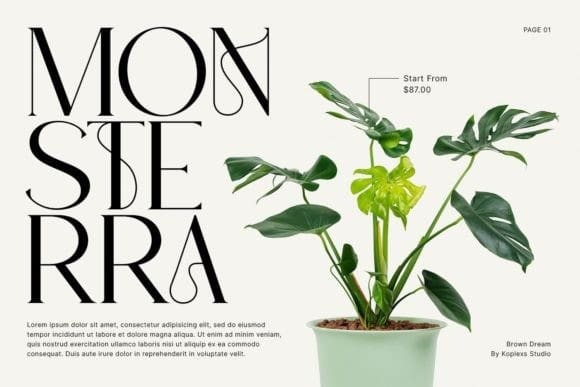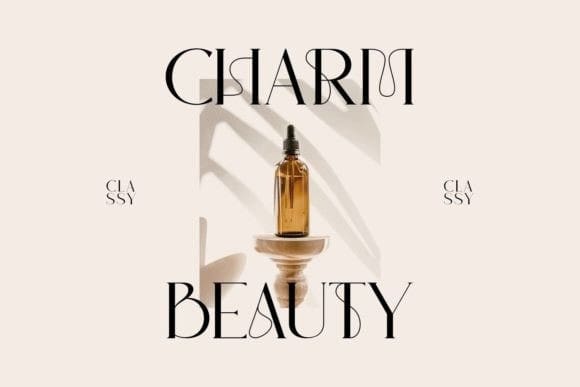
Brown Dream Font
Brown Dream Font is a collection of modern, feminine, beautiful and classy characters, giving you a unique look for any branding or design need.
Brown Dream font has a blend of beauty and classy feel, which has a variety of uses but is primarily intended for logos, book covers, perfumes, fashion magazines, or invitations. Not only will you find lots of decorative characters, but also the number of unique alternative characters will make you fall in love with this font.
Access your OpenType features to access the large selection of alternate letters and ligatures, select the letters you like from the large variety to look you are after.